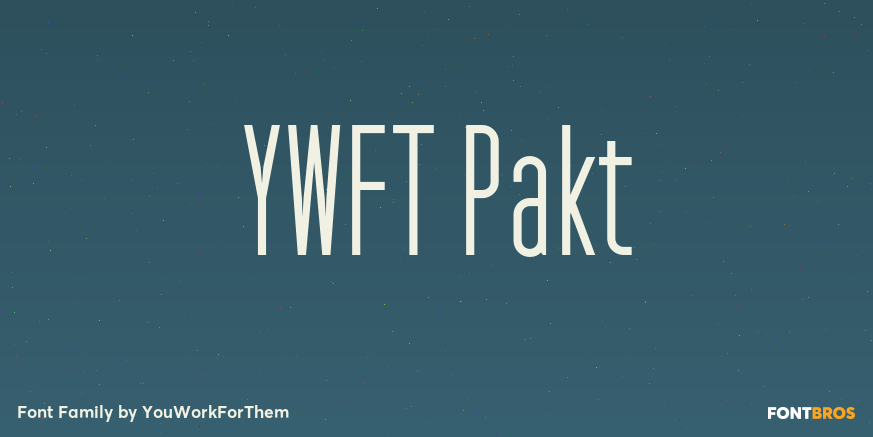
YWFT Pakt
About YWFT Pakt
YWFT Pakt is a condensed, sans-serif typeface consisting of ten different weights. While the design of YWFT Pakt is conservative, serious and authoritative, it still manages to maintain that fresh feeling that more venerable names just don\’t have. Great…